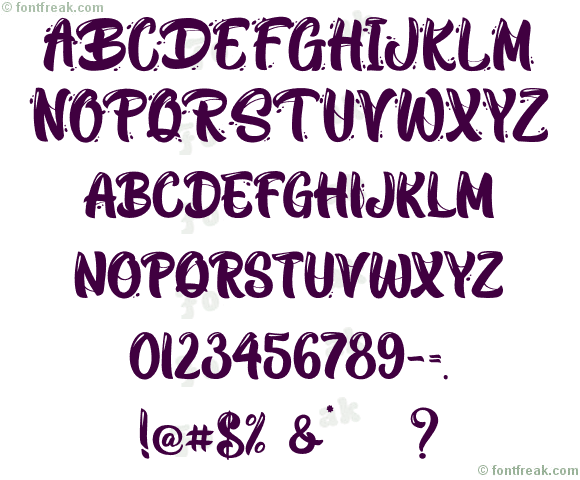
BlackWayPersonalUse
About BlackWayPersonalUse
The BlackWayPersonalUse font, crafted by Suthi Srisopha, is a captivating display font that falls within the decorative category. With its bold, hand-drawn characteristics, this font exudes a playful yet sophisticated charm. The stroke weight varies throughout the letters, providing a dynamic visual appeal that draws attention. The contrast between thick and thin lines adds a sense of depth, while the slightly irregular spacing contributes to its handcrafted feel. This unique aesthetic is perfect for making a statement in any design project.
BlackWayPersonalUse is particularly well-suited for a variety of creative applications. Its eye-catching style makes it an excellent choice for wedding invitations, where a personal touch is essential. Additionally, it works wonderfully for movie posters, lending an artistic flair that can enhance the visual narrative. Restaurant menus can benefit from its lively appearance, making dishes look more enticing and appealing to diners. The font can also be effectively used in branding materials for small businesses, emphasizing a friendly and approachable image. Content creators will find that it adds a unique twist to social media graphics, making posts more engaging.